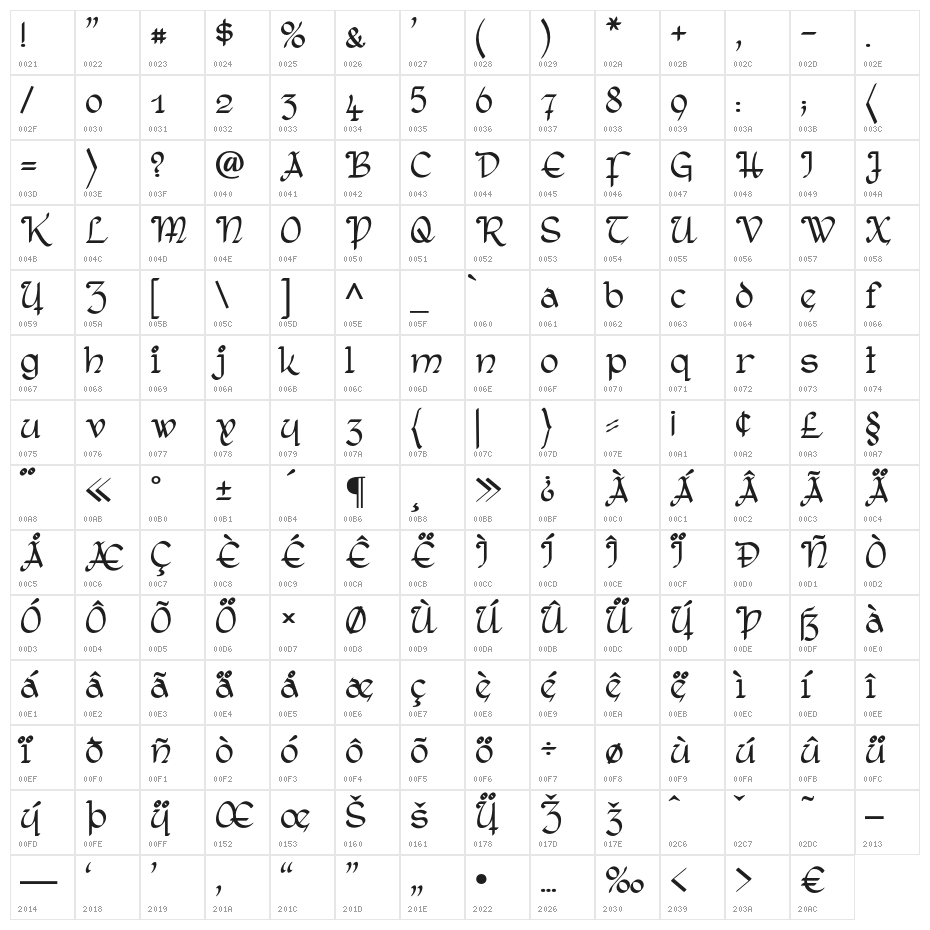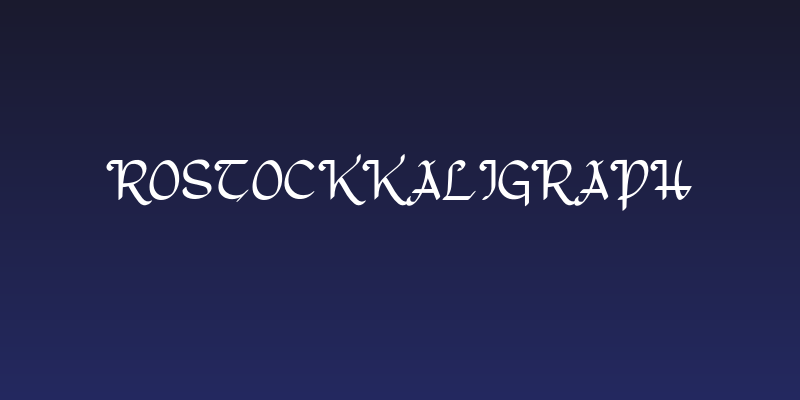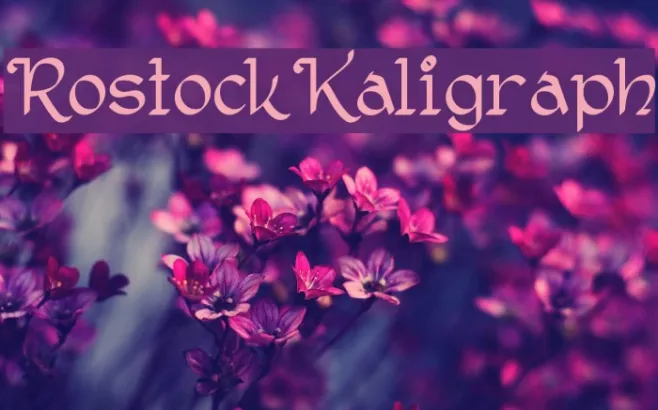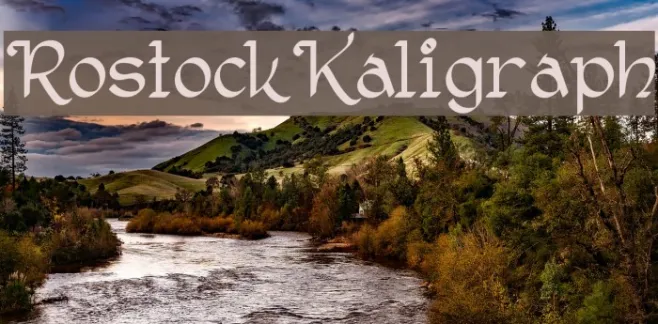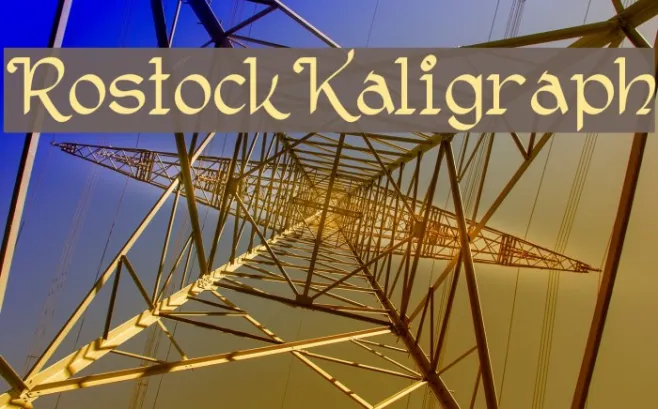
RostockKaligraph Font
RostockKaligraph Description
This font features a distinctive calligraphic style with elegant, flowing strokes that give it a sophisticated and artistic appearance. The uppercase letters are characterized by their ornate curves and flourishes, while the lowercase letters maintain a consistent fluidity that complements the overall design. The numerals are crafted with a similar attention to detail, providing a cohesive look across all characters. Special characters are designed with unique flair, enhancing the font's decorative appeal. This font is ideal for projects that require a touch of elegance and creativity.
| Proposed Projects | Ideal for wedding invitations, greeting cards, branding, and artistic projects. |